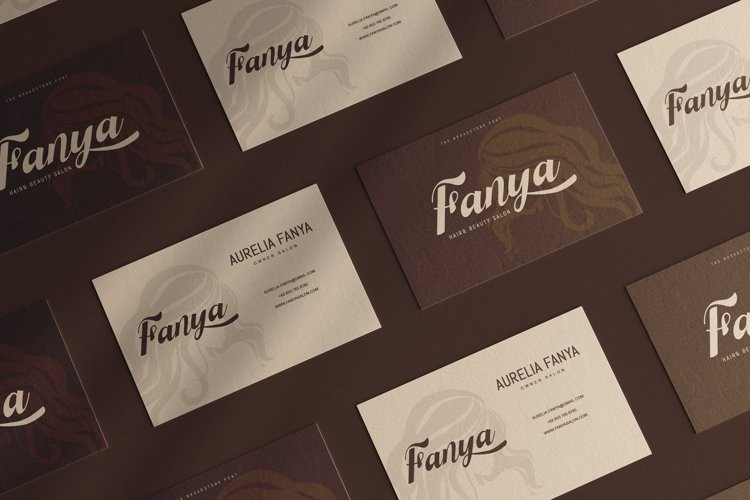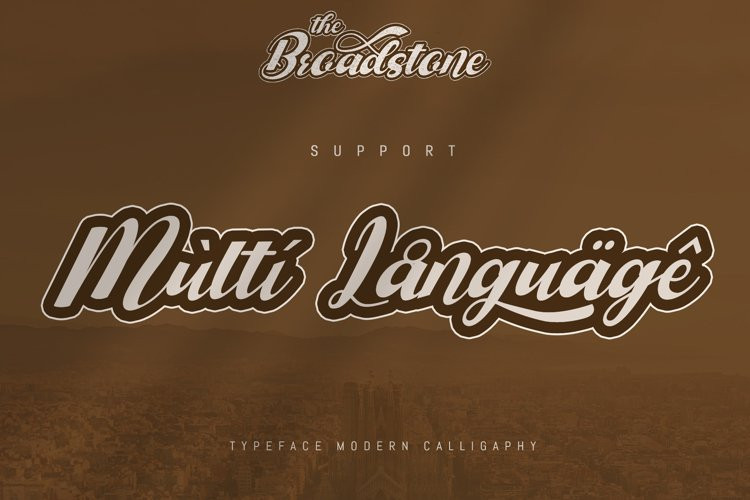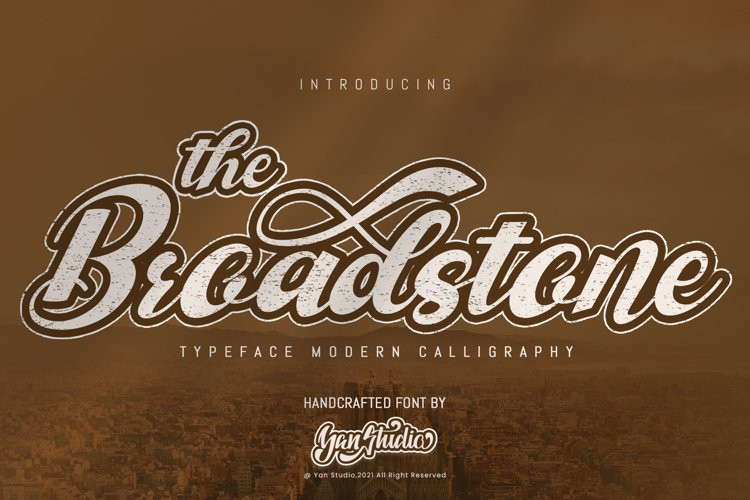
The Broadstone Font
The Broadstone FontThe Broadstone is a gorgeous and bold handwritten font, crafted to give your headlines and logotype projects a retro touch. This font reads as strong, confident, and dynamic and can add tons of nostalgic character to your designs.